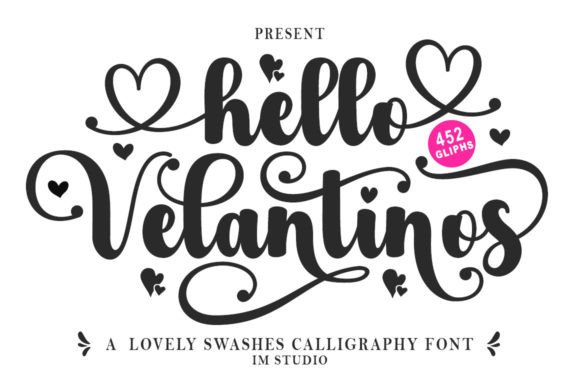
Unleash the Allure of Hello Velantinos: A Handcrafted Symphony of Beauty and Charm
In the realm of typography, where letters dance and characters come alive, there exists a font that captures the essence of elegance, playfulness, and timeless allure. Introducing Hello Velantinos, a delightful creation from the artistic minds of IM Studio, a font family that exudes sophistication, warmth, and boundless creative possibilities.
Hello Velantinos is more than just a font; it's an invitation to let your imagination roam free, to explore a world where words become art and emotions leap off the page. With its delicate curves, enchanting swashes, and an air of effortless grace, this script font transforms every letter into a piece of art, a visual melody that resonates with the heart.
Whether you're crafting heartfelt love letters, designing captivating headlines, adding a touch of whimsy to wedding themes, or creating enchanting Christmas and birthday greetings, Hello Velantinos is your perfect companion. Its versatility knows no bounds, allowing you to explore a vast spectrum of creative applications. From overlays on images to stickers that add a pop of color and charm, this font is a veritable treasure trove of endless possibilities.
With Hello Velantinos, you'll discover a font that breathes life into your words, a font that evokes emotions, stirs hearts, and leaves a lasting impression. Its intricate details and carefully crafted characters create a visual symphony that captivates the eye and ignites the imagination. Embrace the elegance of Hello Velantinos, and watch your creations transform into masterpieces of visual art.
So, dear seekers of beauty and lovers of art, step into the world of Hello Velantinos and let your creativity shine brighter than ever before. Download this exquisite font today and unlock a realm of endless creative possibilities, where words dance, emotions flow, and your imagination takes flight.